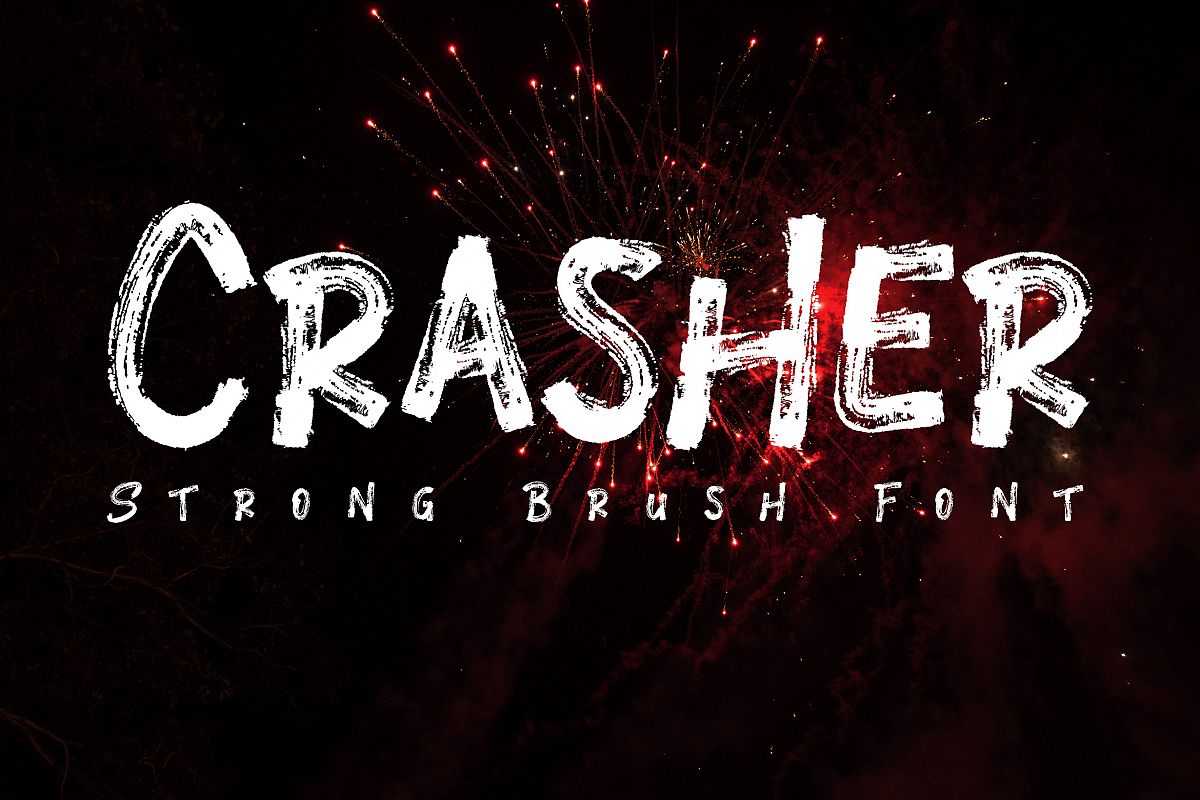
Crasher // Strong Brush Font
Introducing our newest product Crasher.
Crasher is a strong brush font, making it suitable for your design project.Logo design, clothing design, posters, magazines, quotes and more.
Made with natural touch, this font is the best choice for all your design projects.
• Multilingual support - spread your message globally AÀÁÂÃÄÅCÇDÐEÈÉÊËIÌÍÎÏNÑOØÒÓÔÕÖUÙÜÚÛWYÝŸÆßÞþ